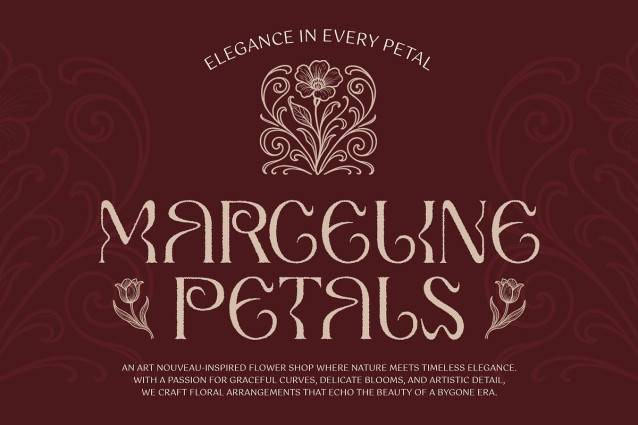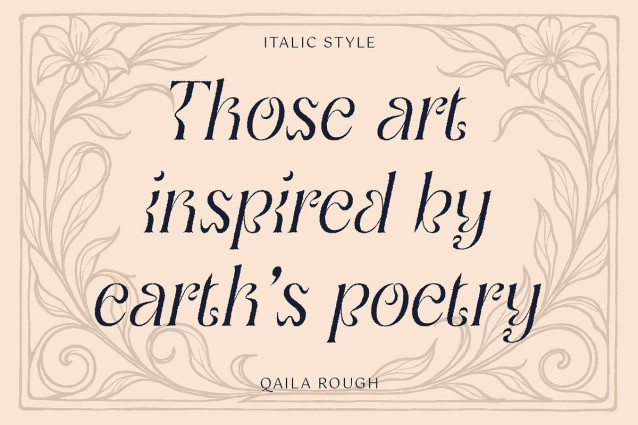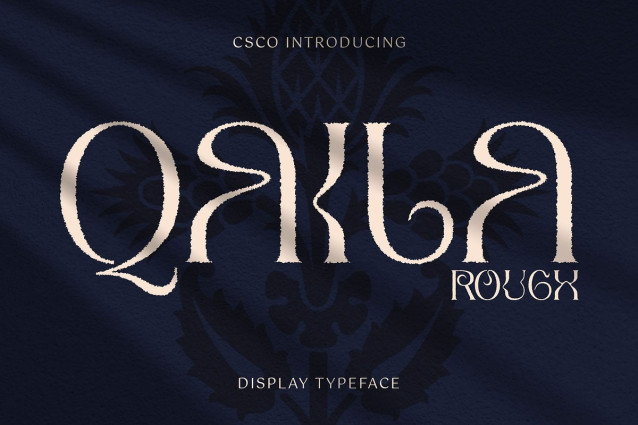
Qaila Rough Font
Qaila Rough Font is a modern serif font that masterfully blends the timeless beauty of Art Nouveau with contemporary minimalist design. Featuring slim and delicately curved letterforms, it offers a smooth and graceful flow that enhances readability while exuding sophistication. The font’s elegant and clean structure makes it a perfect choice for projects that seek to balance classic aesthetics with modern clarity.
Artistic Rough Effect for Expressive Impact The signature rough texture adds a tactile, handcrafted quality that elevates the font beyond typical modern serifs. This subtle irregularity brings depth and personality, making it feel expressive, organic, and full of character.
Balanced for Modern Luxury and Classic Aesthetics Qaila Rough masterfully blends classic elegance with contemporary clarity, resulting in a font that’s both polished and emotionally engaging. It’s ideal for projects that require sophistication with a human touch—where refinement meets creativity.
Perfect for High-End Creative Applications Whether used in high-end creative branding, stylish fashion editorials, or luxurious packaging designs, Qaila Rough delivers a unique blend of beauty, personality, and artistic flair. It’s especially suited for projects that want to stand out with a refined, handmade vibe that feels both exclusive and inviting, perfect for connecting with discerning audiences who appreciate craftsmanship and design excellence.